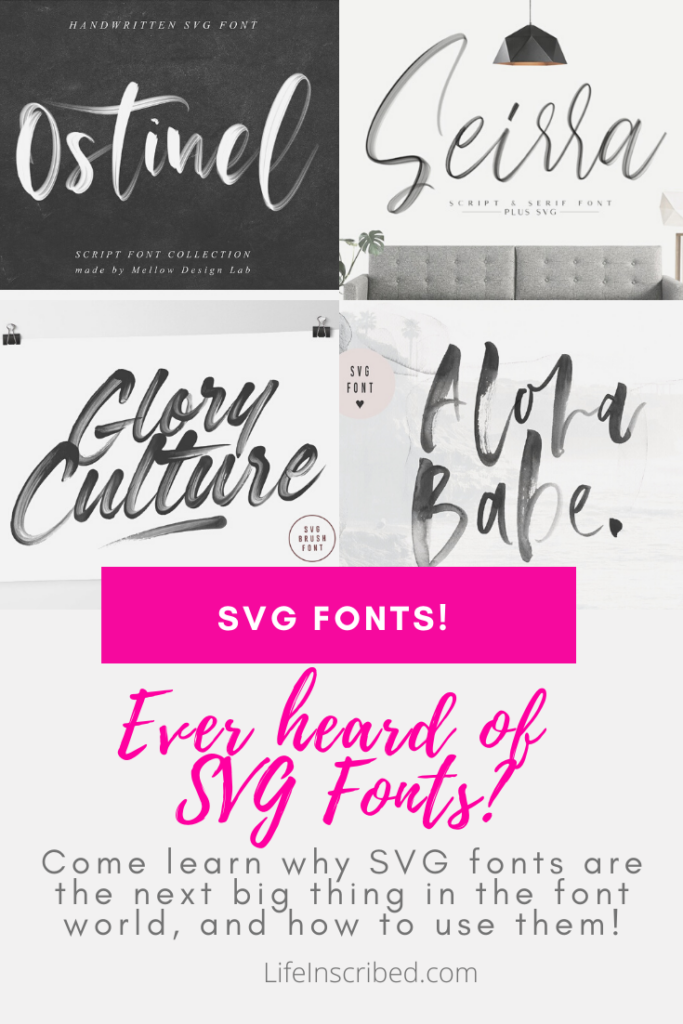
SVG fonts are the latest development in the font world, and they are totally awesome. No joke.
They are colorful and fun, easy to use, and provide a wide array of options that just don’t come with normal fonts.
What are SVG Fonts?
It is basically a font that is made of individual SVGs.
Now, we’ll quickly differentiate here between color fonts and SVG fonts. They are often referred to interchangeably, however some color fonts do not come in SVG format. So, color fonts are the broader term, and SVG fonts are a specific subset of that.
They are perfectly scalable, meaning they won’t pixelate if you make the font huge. This is assuming your font comes in vector form versus bitmap (like regular fonts). For an in depth look at bitmap vs vector, head on over to Lifewire.com.
One of the cool things about SVG fonts is that they are capable of transparency. It’s not just flat black and white fonts anymore! The first video below will demonstrate this cool property.
Another neat tidbit is that many of these fonts come pre-colored! How neat is that? The come in all kinds of cool shades and color schemes!
The color information is embedded right into the font info itself, so no need to change anything to give your text an awesome effect (unless you want to, which we’ll get to later,)
How to use SVG Fonts
After installation, using your font in Photoshop is just like typing with any other font. the trick comes with coloring your font and adding in special effects.
Are you excited yet?
I know I am!
I know that right now my first thought for using this style of font is branding. Customize the colors for your incredibly unique font, and use it over and over for your business!
Got a huge event coming up, like a wedding or a conference? Use it all over your stationery!
There are so many uses for such a unique font, and I know you can come up with so many more awesome ideas than I can.
Now get typing!
I was right, wasn’t I?
These fonts are awesome!